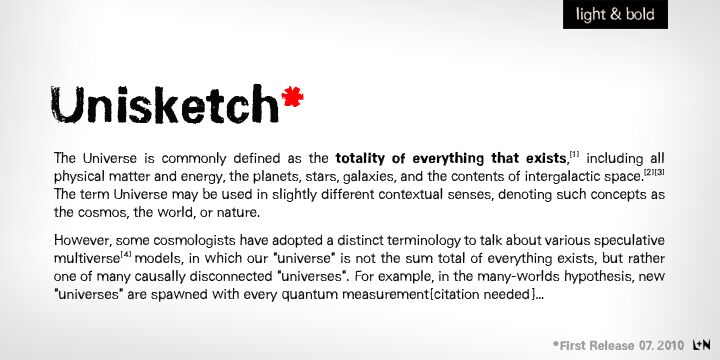
Unisketch Bold, created by Ursula Hitz in 2010, is a free eroded display font with roughly inked, forceful lettering. Its broad forms have uneven edges and scattered nicks that resemble a worn screen print. The shapes stay sturdy despite the distressed surface.
Street culture and independent music are natural subjects for this lettering, making it useful on gig posters, record sleeves, and skate merchandise. For brewery packaging or restaurant branding, the battered texture can define the product identity.